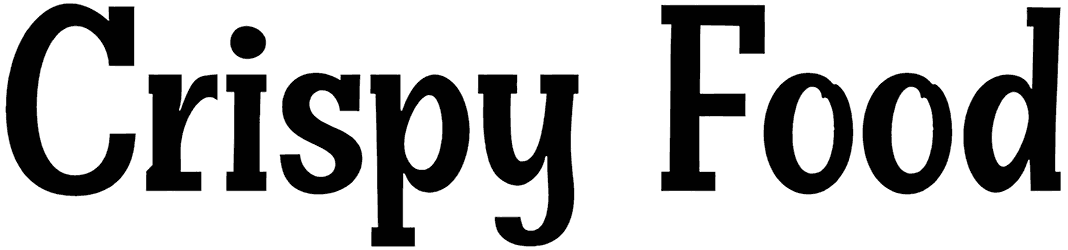
The reason why Benjamin Franklin is a special retro font is, the fact that it offers thick bold characters, plus it also has a distorted style to its design! If you go forward with this specific vintage industrial font you will achieve a typography that is deformed with a vintage feel.
The main features of Benjamin Franklin are the mixed-case alphabet, numbers, and the punctuations it offers. It’s an excellent choice for wherever you wish and books, banners, headings, and logos.